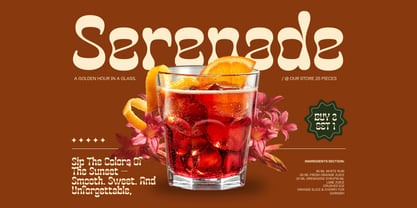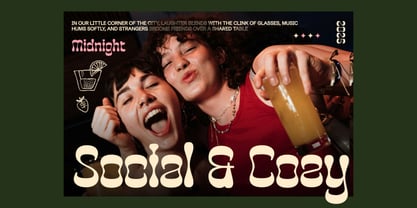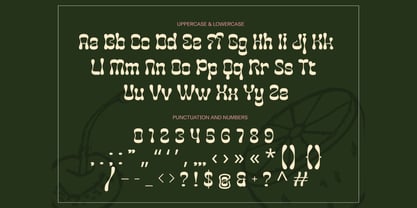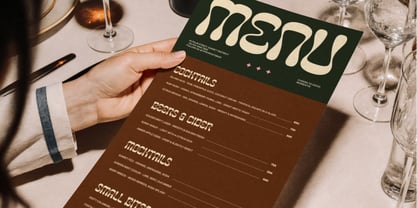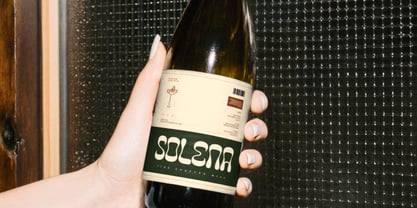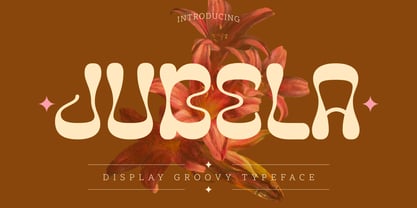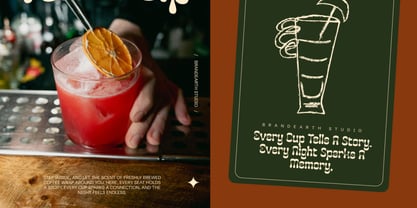
Jubela
The Jubela Font Family was designed by Moch Rasjid Wiyono and published by Brandearth. Jubela contains 1 styles. More about this family
Jubela Psychedelic Retro Font brings a bold, playful, and nostalgic touch to your design projects. With smooth curves, quirky shapes, and retro-inspired details, this typeface captures the essence of vintage groovy lettering while maintaining modern readability. It offers both uppercase and lowercase characters, numbers, and punctuation to give full flexibility in creating standout typography. Relevance and Use Cases is perfect for poster design, logo design, merchandise, magazine titles, editorial layout, motivational quotes, packaging, display typography, event promotion, banner design, signage, creative campaigns, advertising, branding project, social media graphics, retro album cover, music festival poster, product packaging, vintage-inspired illustration, lifestyle blog header, café or bar menu design